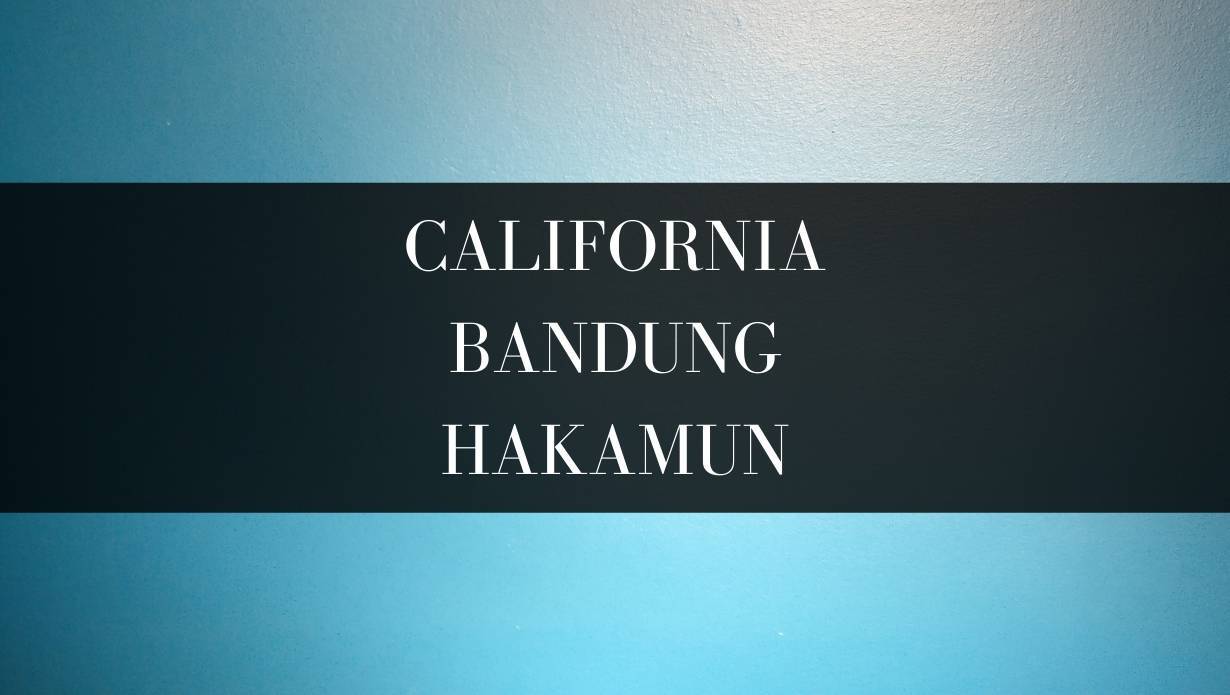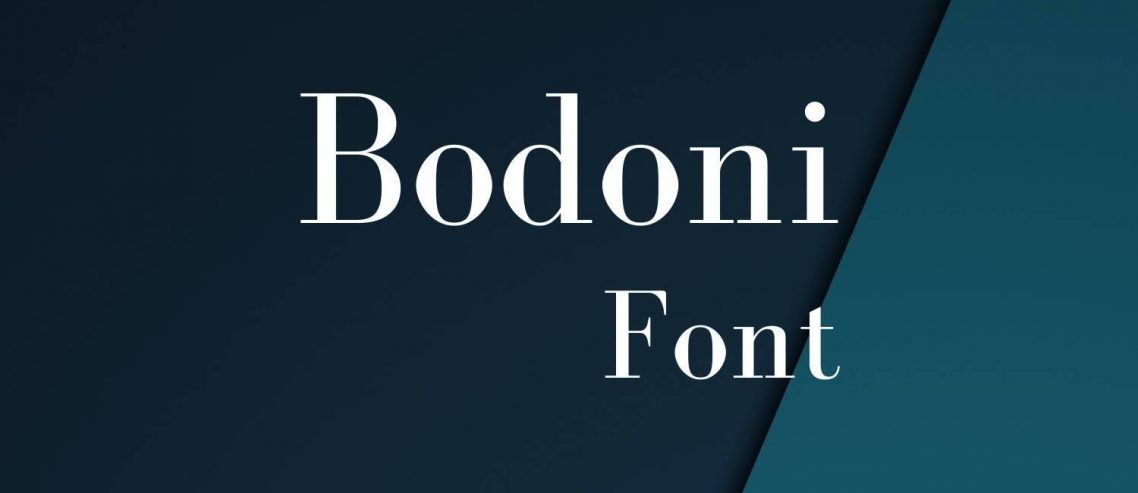
Bodoni font is a serif typeface designed by Giambattista Bodoni in 1798. It’s characterized by very high contrast between thick and thin strokes, and an overall geometric appearance. This is named after its creator, and it’s considered to be one of the first modern typefaces.
It also contains many unique features, such as small caps and old-style figures. This unique combination of features makes Bodoni an excellent choice for displays and headlines. You can pair it with sabon font.
Bodoni Font Info
| Name | Bodoni Font |
| Designer | Giambattista Bodoni |
| Style | Serif |